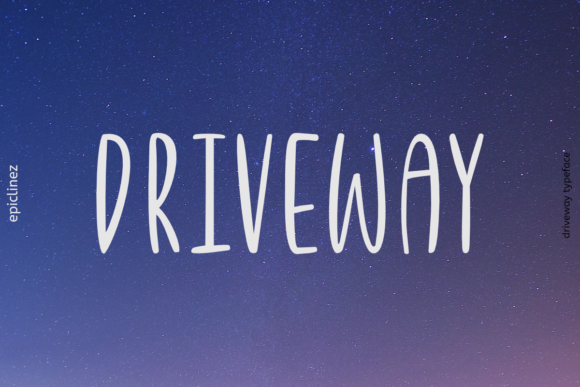
Driveway, the adorable casual handwritten font, bestows upon you the power to breathe life into any creative endeavor. A creation of Epiclinez, Driveway is crafted with an intrinsic legibility and playful spirit. Its simplistic essence emanates a charm that will illuminate your designs.
Envision the enchantment Driveway will bring to your branding, particularly for businesses catering to a younger demographic or striving to convey a touch of whimsy. It's the ideal choice for conjuring warm and inviting atmospheres, whether you're designing for nurseries, children's products, or playful apparel.
Beyond its aesthetic appeal, Driveway serves as an asset for creating visually engaging content that resonates with audiences. It's the secret ingredient for crafting captivating social media posts, eye-catching marketing materials, and memorable website designs. Experience the transformational power of Driveway today and unlock a world of creative possibilities that will leave a lasting impression.